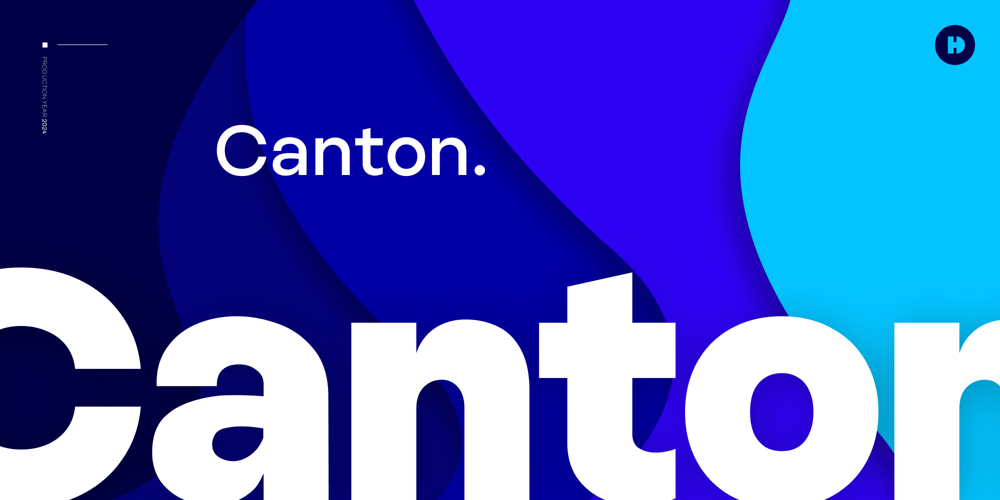
HD Canton
HD Canton font
HD Canton Font Family was designed by Dan Jones and published by HyperDeluxe. HD Canton contains 19 styles and family package options. HD Canton is a contemporary, geometric sans serif that has been designed and engineered by Design Studio, HyperDeluxe. Elegant and unpretentious, HD Canton aims to integrate seamlessly into your brand, while featuring subtle details to key letterforms that give it a distinctive personality, without being distracting.It comes in 9 weights with matching italics, or a single 2-axis variable font.